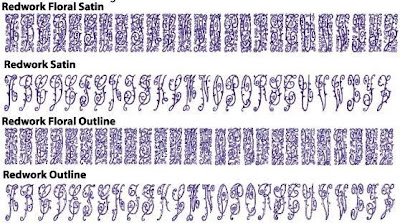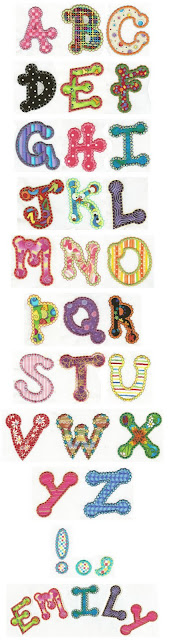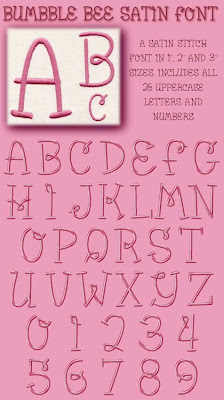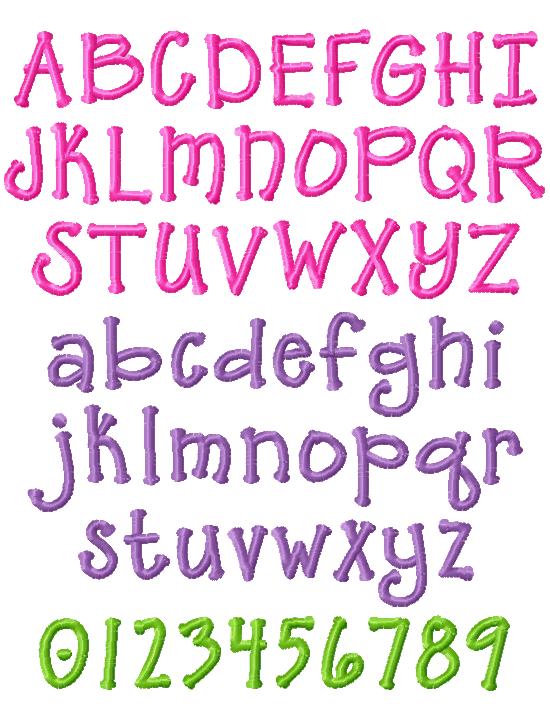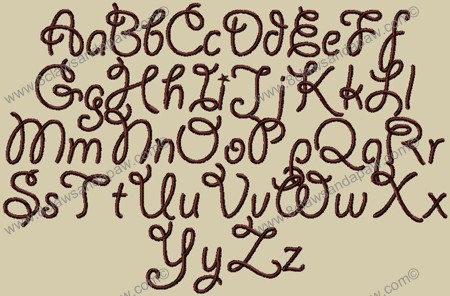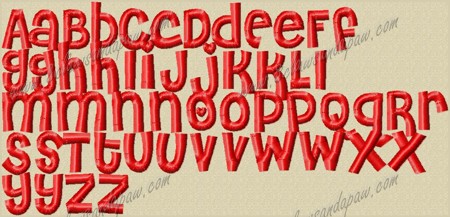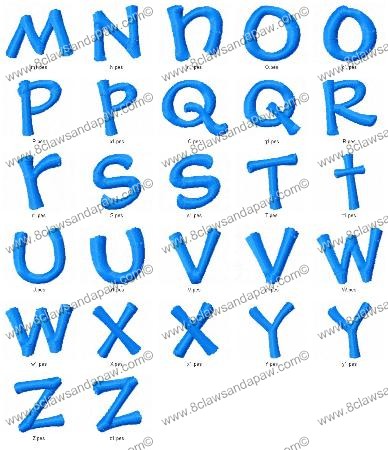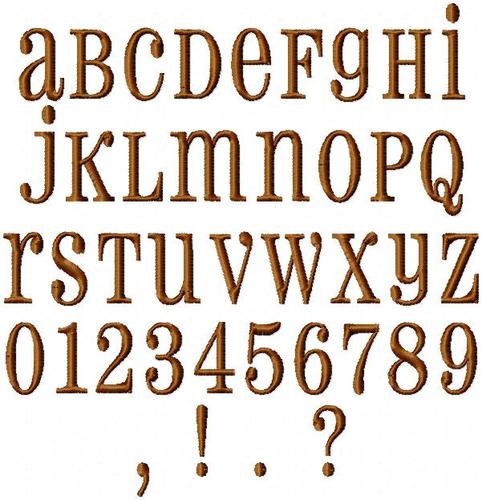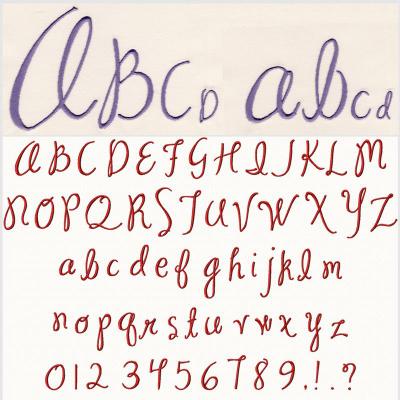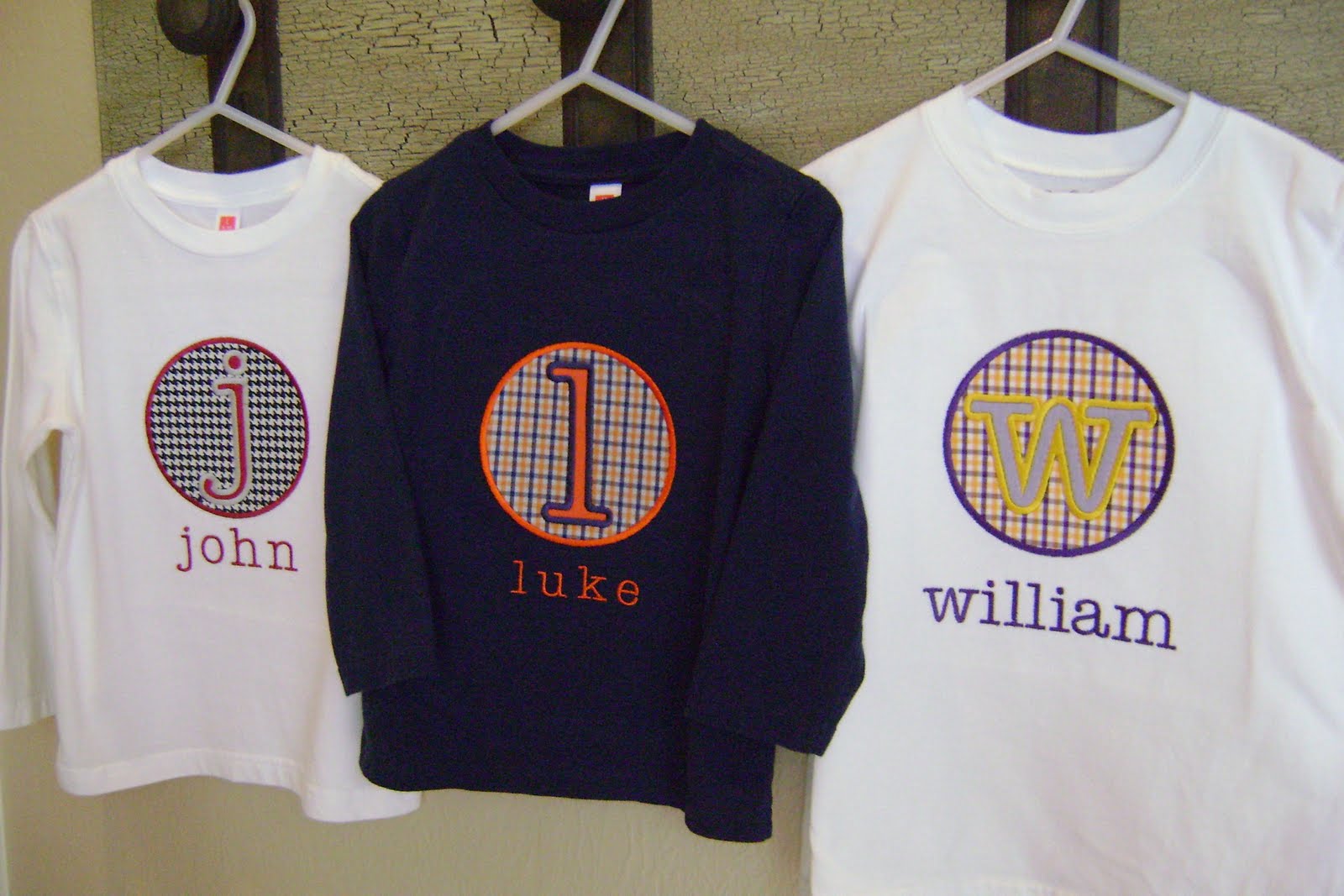
I've added several new fonts recently!
ADFIRST
ARABESQUE
ARTFLOW
ATILLA
BABY BLOCKS
BEVERLY
BLACKBOARD
BLOCK
BLOCK APPLIQUE
BOBO
BOLD BLOCK
BRANDED
BRUSH SCRIPT
BUFFY
CANDLEWICK
CAROLINE
CARTOON
CASTLE
CASUAL SCRIPT
CHARLESTON
CHISEL
CIRCLE
COTILLION (Fishtale)
CURLY-Q
CURVY
DECO
DIAMOND
DUO TONE
EASY
ENGLISH REVIVAL
EXACT SCRIPT
FEATHER
FLARE
FLETCH
FRONT BEACH
FULL BLOCK
GOLDLEAF
GREEK
GREGORY
HEBREW BLOCK
HEBREW SCRIPT
HEIRLOOM
HIGH POCKETS
INITIALS
ITALIC SCRIPT
JOCK BLOCK
KID BLOCK
KIM MULTI
KIM SINGLE
LYON
MASTER CIRCLE
MC CENTER
MIAMI
MONOGRAM SCRIPT
MYSTERY
NATURAL CIRCLE
NATURAL DIAMOND
OLD ENGLISH
ORNATE SCRIPT
PARIS
PARTY TIME
PENDANT
PLAID BLOCK
REDWORK
RIBBON
RICAMO
ROSEBUSH
ROTANDO
ROUNDED BLOCK APPLIQUE
SALOON
SERIF BLOCK
SIMPLE SCRIPT
SLEIGH RIDE
SMALL BLOCK
STACEY
STRETCH
SWIPE BLOCK
SYDNEY
TECHIE
TIBET
TIPSY
TUXEDO
TWIN
UNIBLOCK
VICTOR
WEDDING DAY
WORMS
FANCY SCRIPT
VOLUPTUOUS FONT
MANDI FONT
CHERRY FONT
GIDDY UP FONT
WHOA NELLY FONT
PHARMACY FONT
DELIGHTFUL FONT
CHERIE APPLIQUE Font
One of my favorite applique fonts to use! This font has 3 different finishes...Vintage, Starburst & Satin Stitch.
DOTTY APPLIQUE Font
This fun font has a pretty finished stitching.
REVERSE APPLIQUE FONT
REVERSE CURLZ FONT
TAYLOR FONT
TYPEWRITER FONT
SCOOTER/MOPED Font
CURLY SCRIPT Font
CURLY CHRISTMAS Font
EASTER EGG APPLIQUE Font
These letters & numbers may be used with the Easter Egg Applique or on another project of your choice!
GIFT TAGS WITH HEARTS Font
These are really cute tags that attach to gifts, bags or luggage. The letters may also be used in another project, with or without the hearts.
DAFFODIL Font
MILLIE Font
CHACHIE APPLIQUE Font
BUMBBLE BEE Font
CURLZ Font
CURLZ APPLIQUE Font
BOYS R GROSS Font
DOTS Font
CHUBBY DOTS Font
"NOAH" FONT 009
"KATE" Font
"AHW" Font
APPLE APPLIQUE Font
FOOTBALL APPLIQUE
FIRECRACKER APPLIQUE